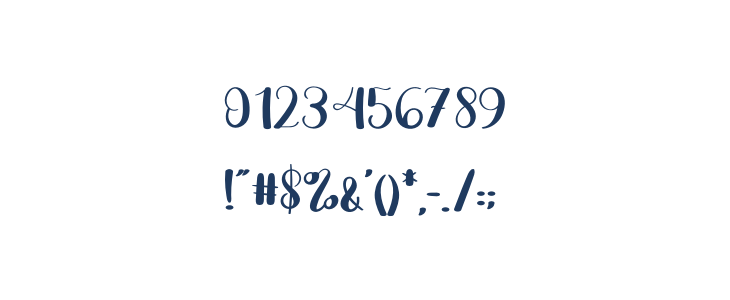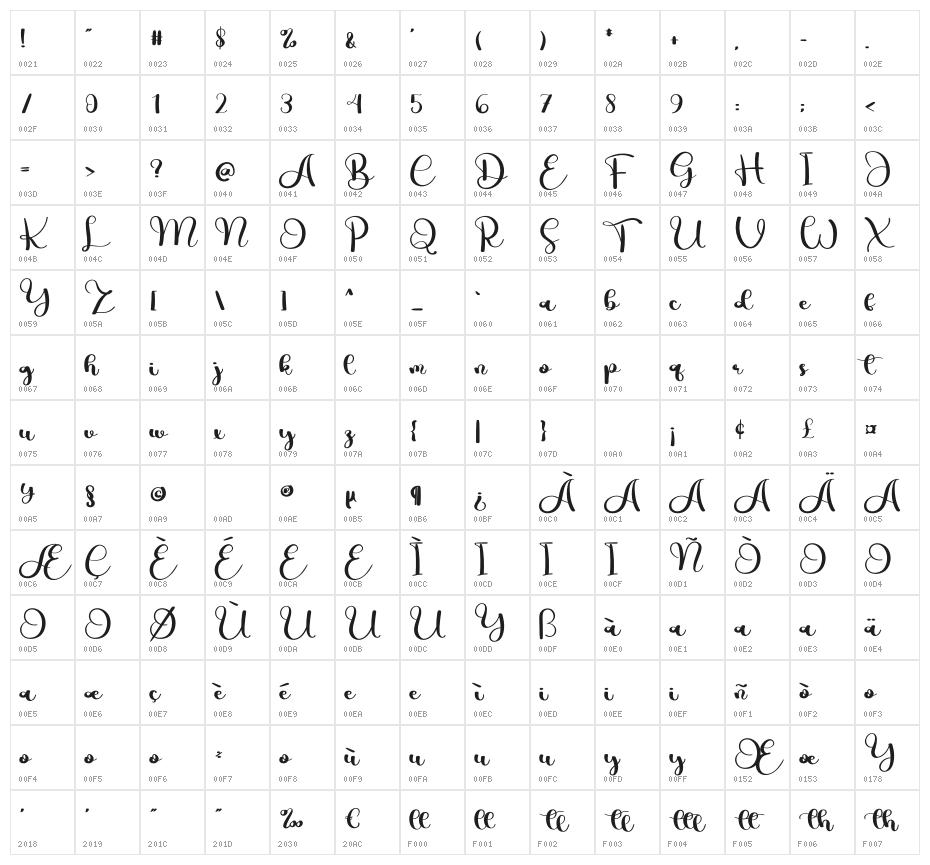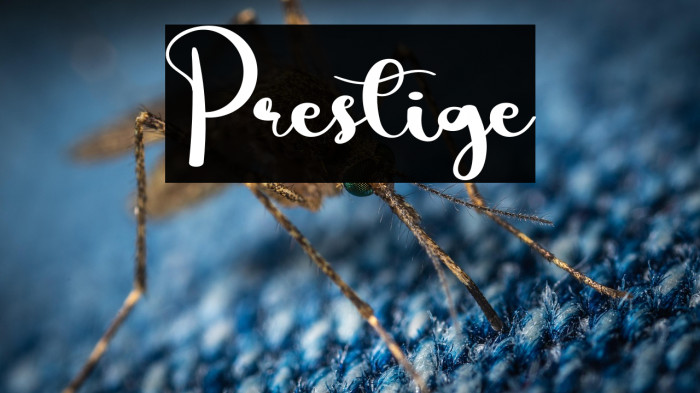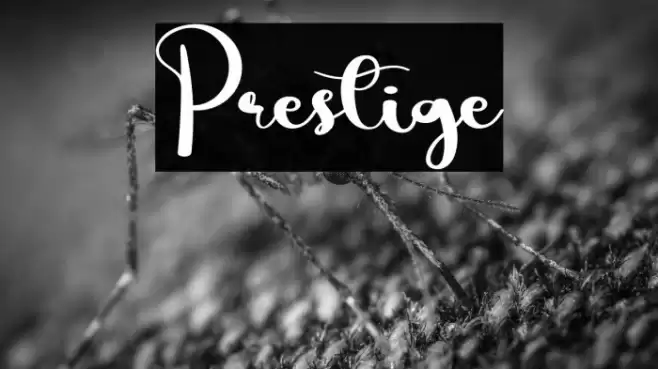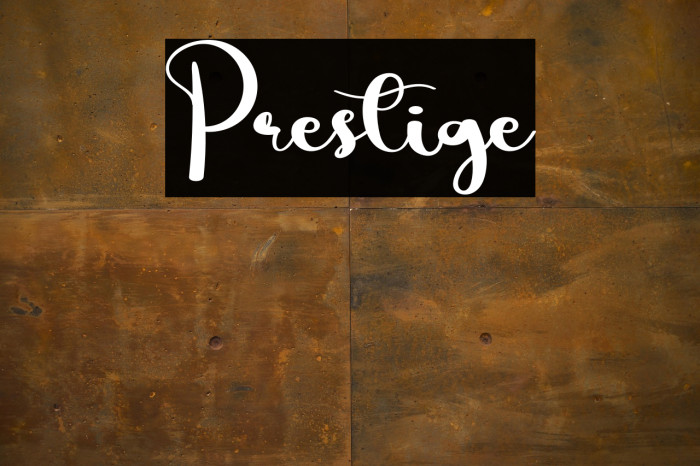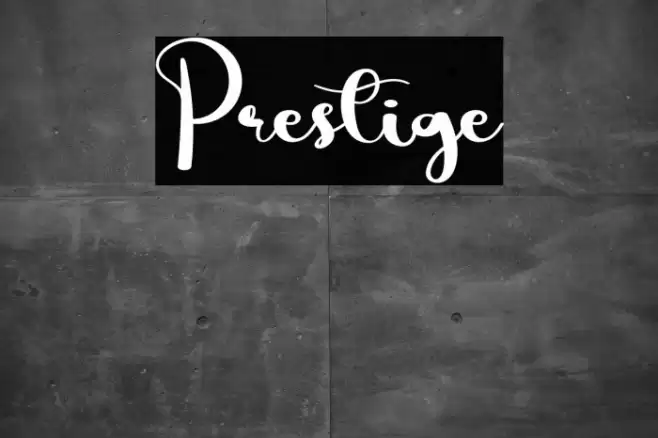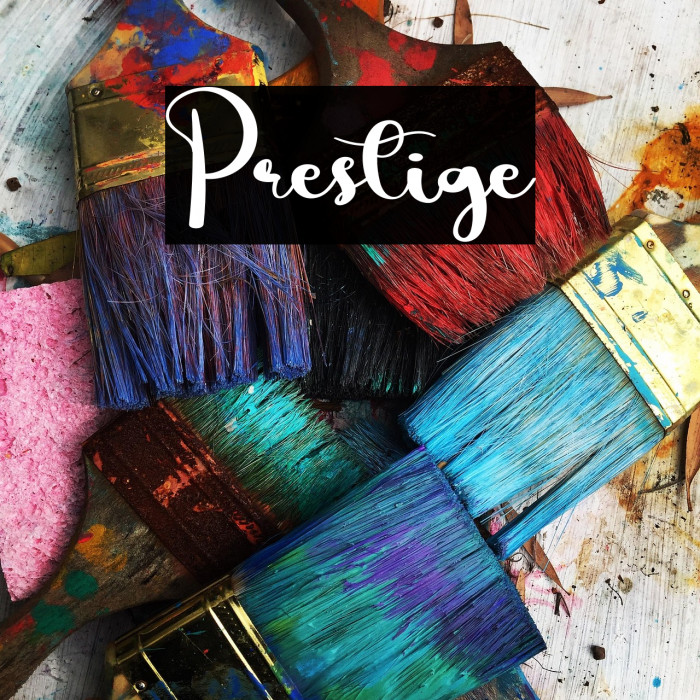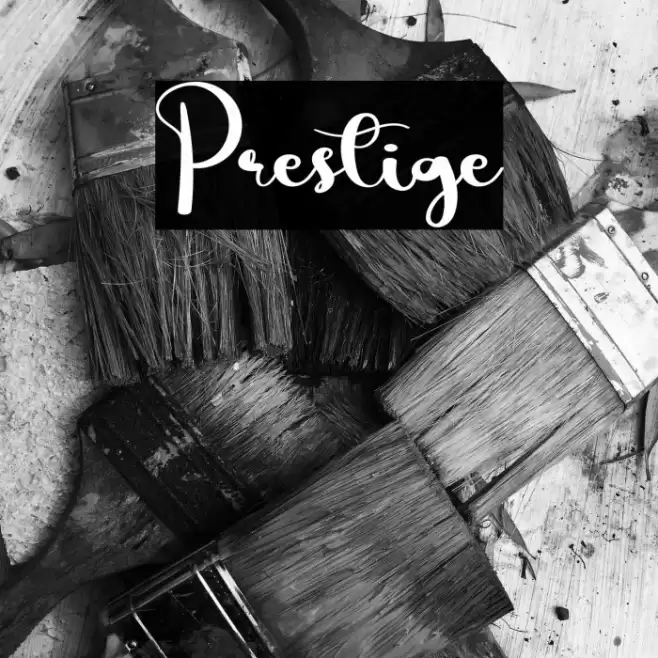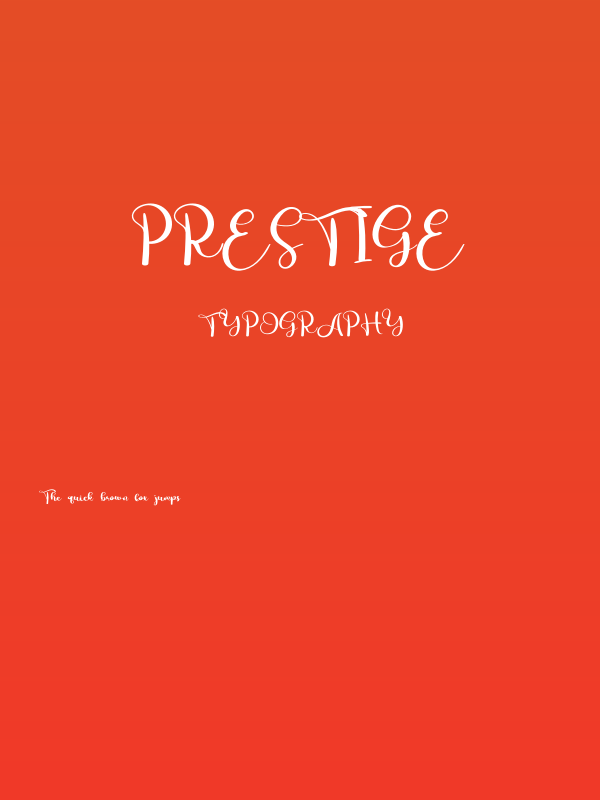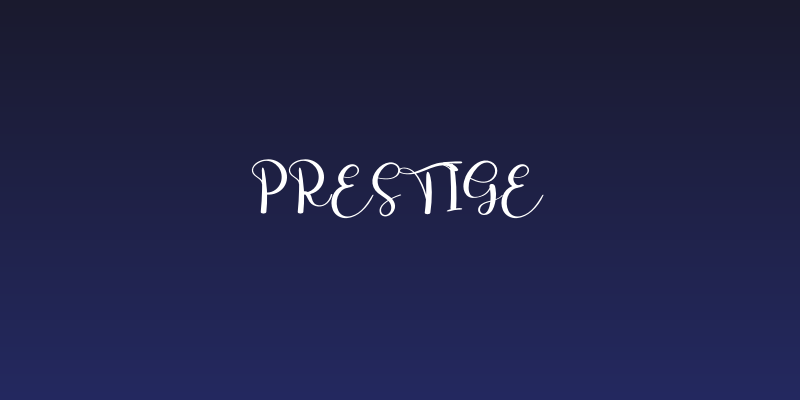
Prestige Font
Prestige Description
This font features an elegant and flowing script style with a modern twist. The uppercase letters are characterized by their intricate loops and swirls, giving them a sophisticated and artistic appearance. The lowercase letters maintain a consistent flow, with some characters featuring unique flourishes that add to the font's charm. The numerals are bold and slightly whimsical, complementing the overall style. Special characters are designed with the same attention to detail, ensuring a cohesive look across all glyphs. This font is perfect for projects that require a touch of elegance and creativity.
| Proposed Projects | Ideal for wedding invitations, branding, greeting cards, and elegant packaging designs. |